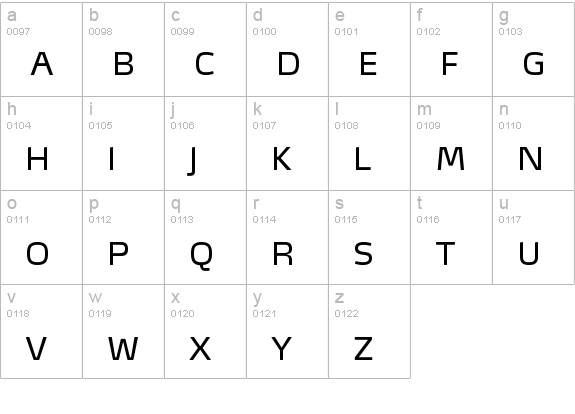
MaxLF-LightSC Font Details
MaxLF-LightSC is a modern and elegant sans-serif font that exudes sophistication and simplicity. Its light weight and clean lines make it perfect for a wide range of design projects, from branding to web design to print materials. The sleek and minimalistic look of MaxLF-LightSC makes it versatile and easy to read, while still maintaining a touch of individuality. One of the best things about MaxLF-LightSC is that it is completely free to download. You can get this stylish font at FontsMarket.com, where you can access a wide range of high-quality fonts for all your design needs. Whether you're working on a personal project or a professional design, MaxLF-LightSC is a fantastic choice that will elevate your work to the next level. Download it today and start creating beautiful designs with this stunning font.